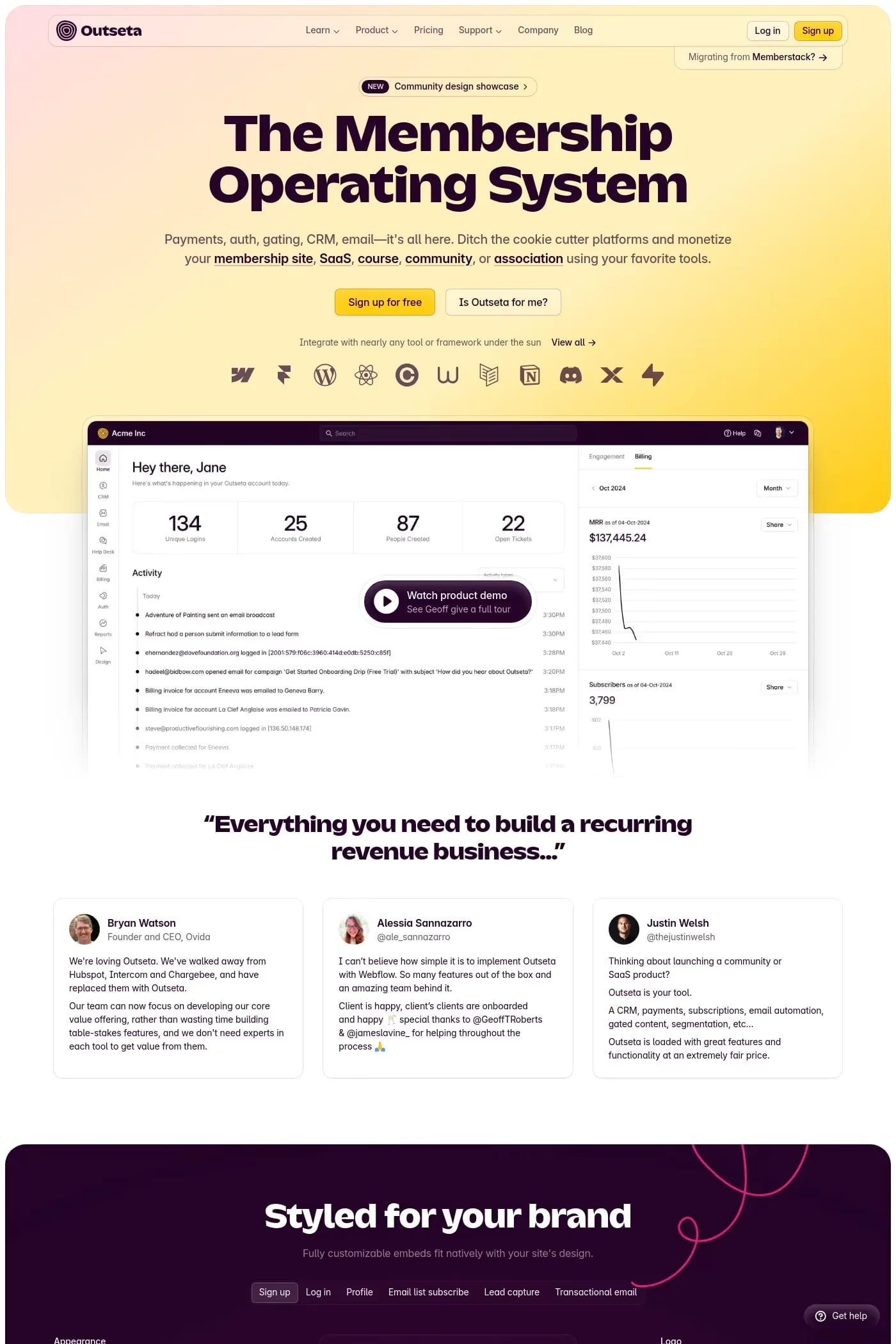
Kaio is a display typeface from Lift Type.
Kaio is a humanist-inspired sans-serif. Available in 6 weights, it’s a more contemporary alternative to classics like Gill Sans or Antique Olive, and works equally well for titles, logos and text. Free trial versions are available for download.